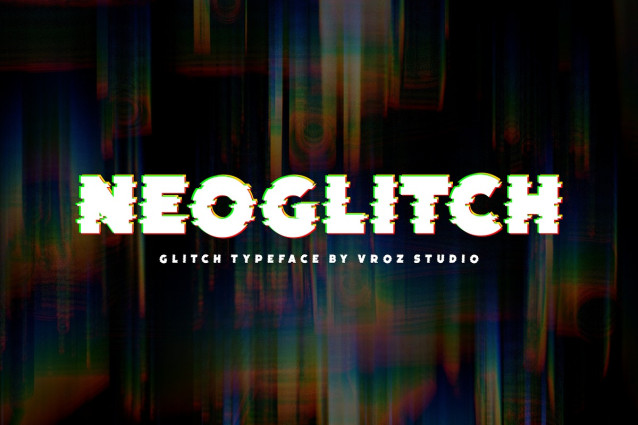
Neoglitch Glitch Font
Neoglitch Glitch Font is a modern font with a glitch effect, combining futuristic and digital elements. The design features characters that seem “glitched” or disrupted, giving it an energetic, techy vibe. It’s perfect for designs related to technology, cyberpunk, and digital themes.